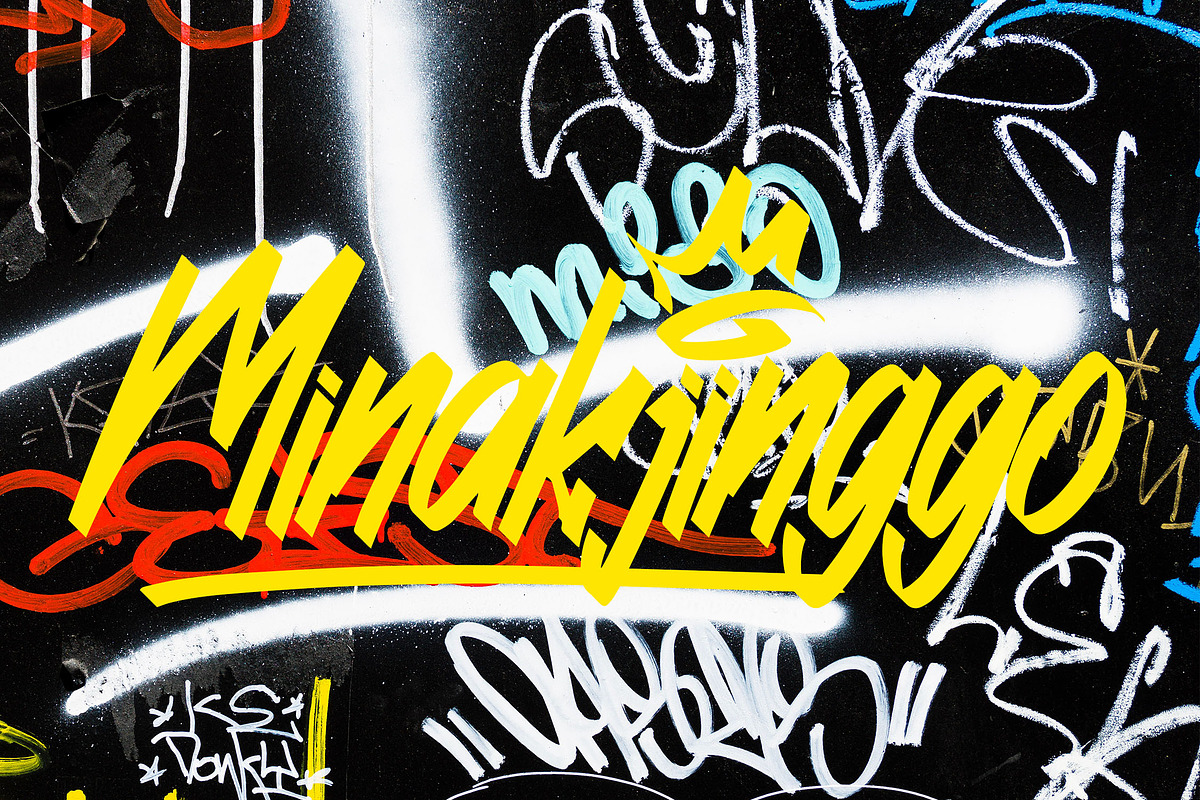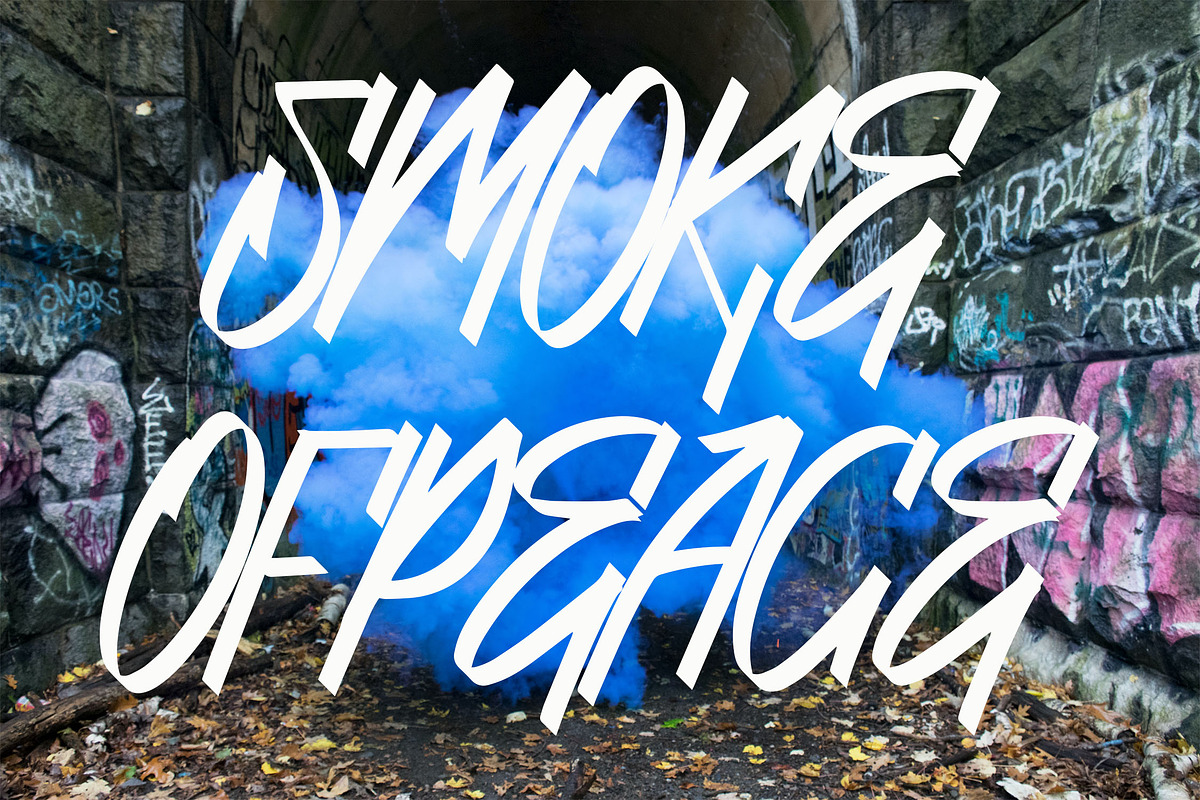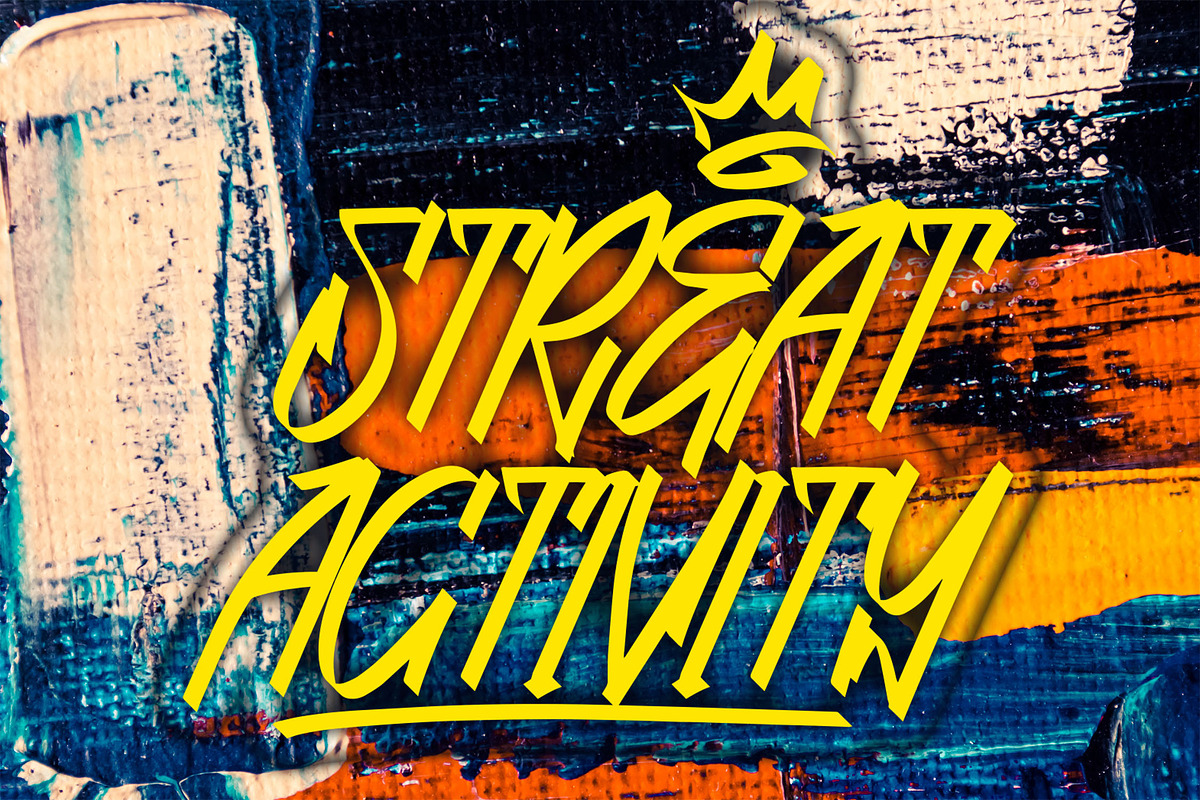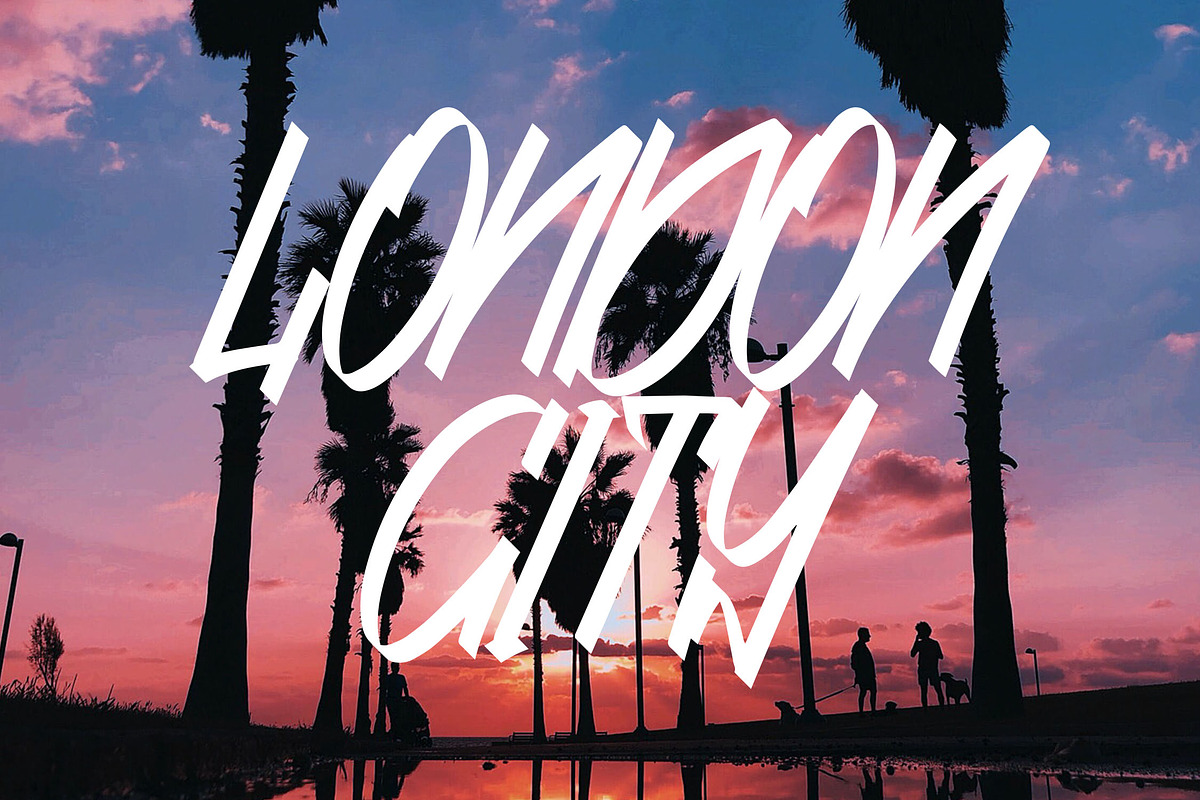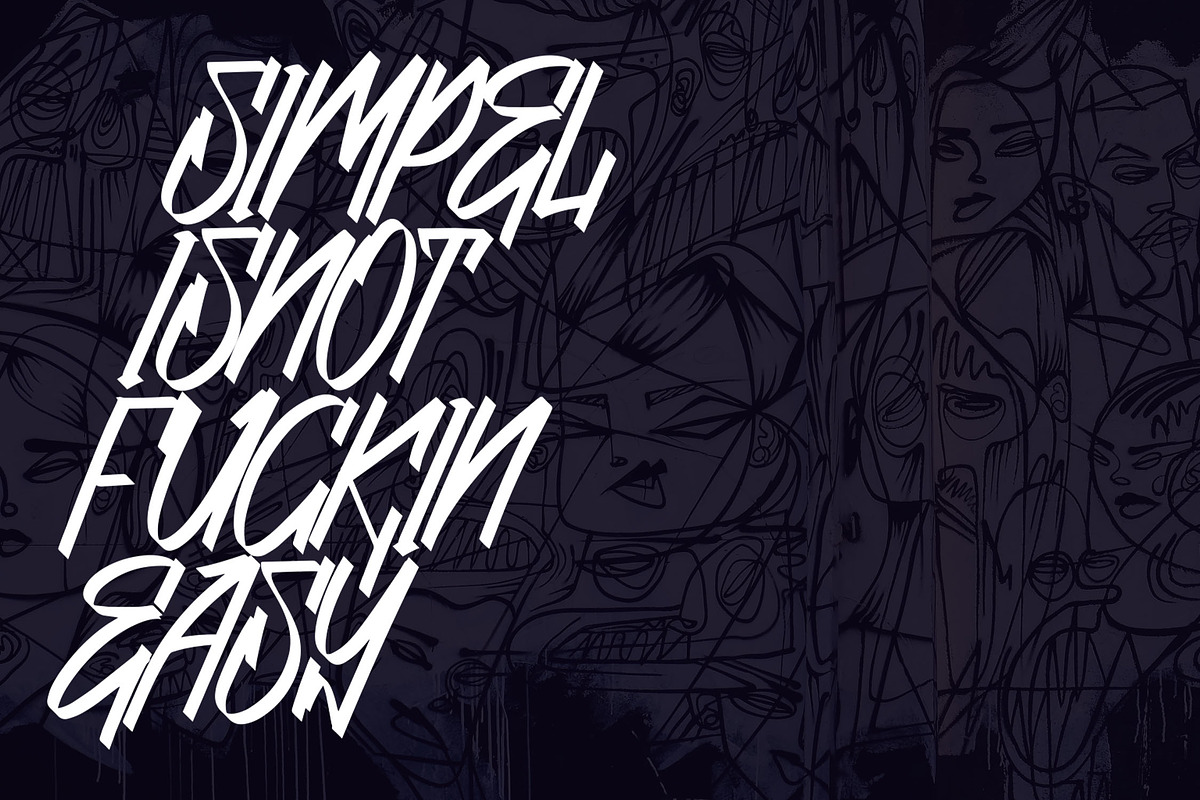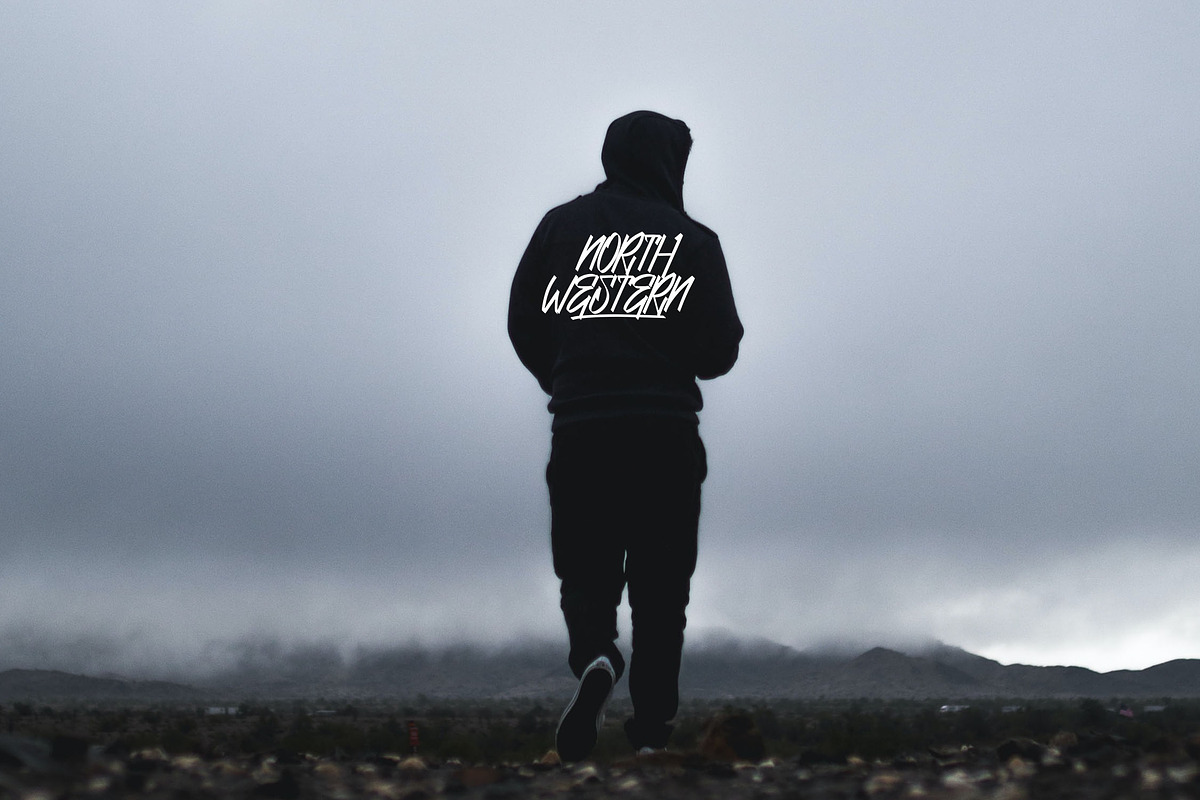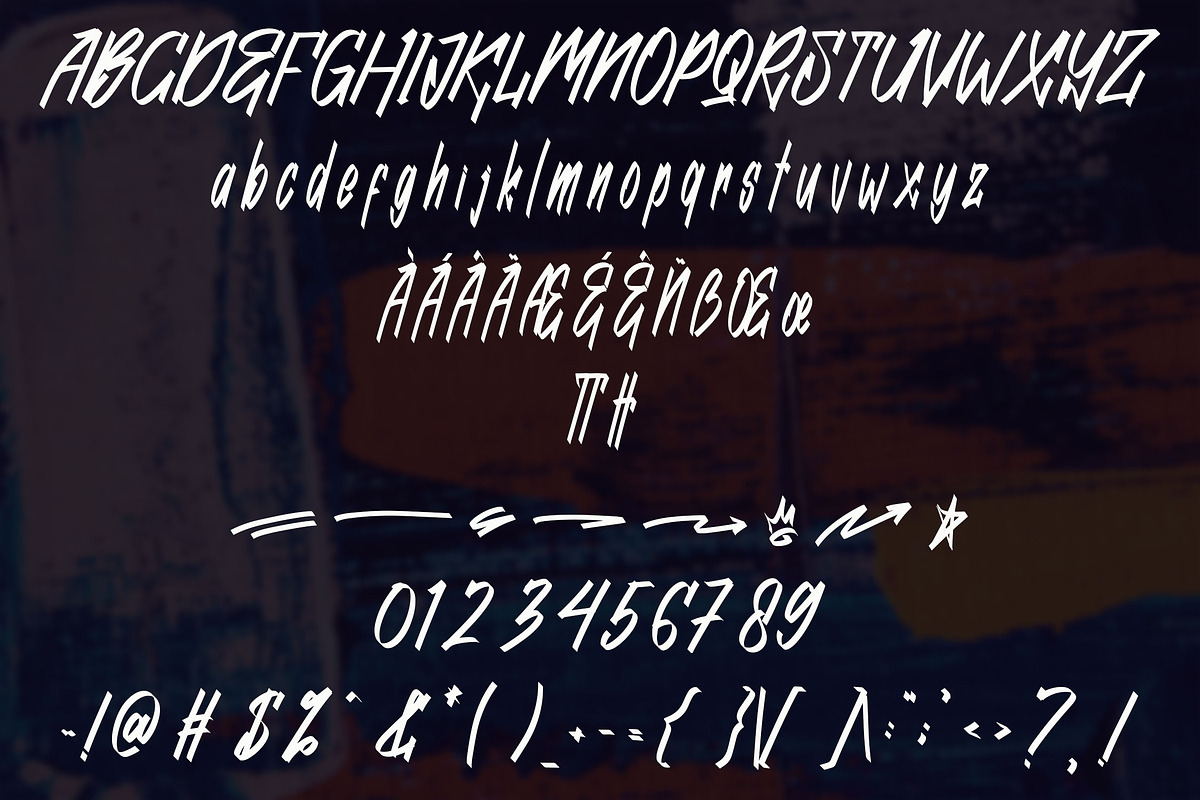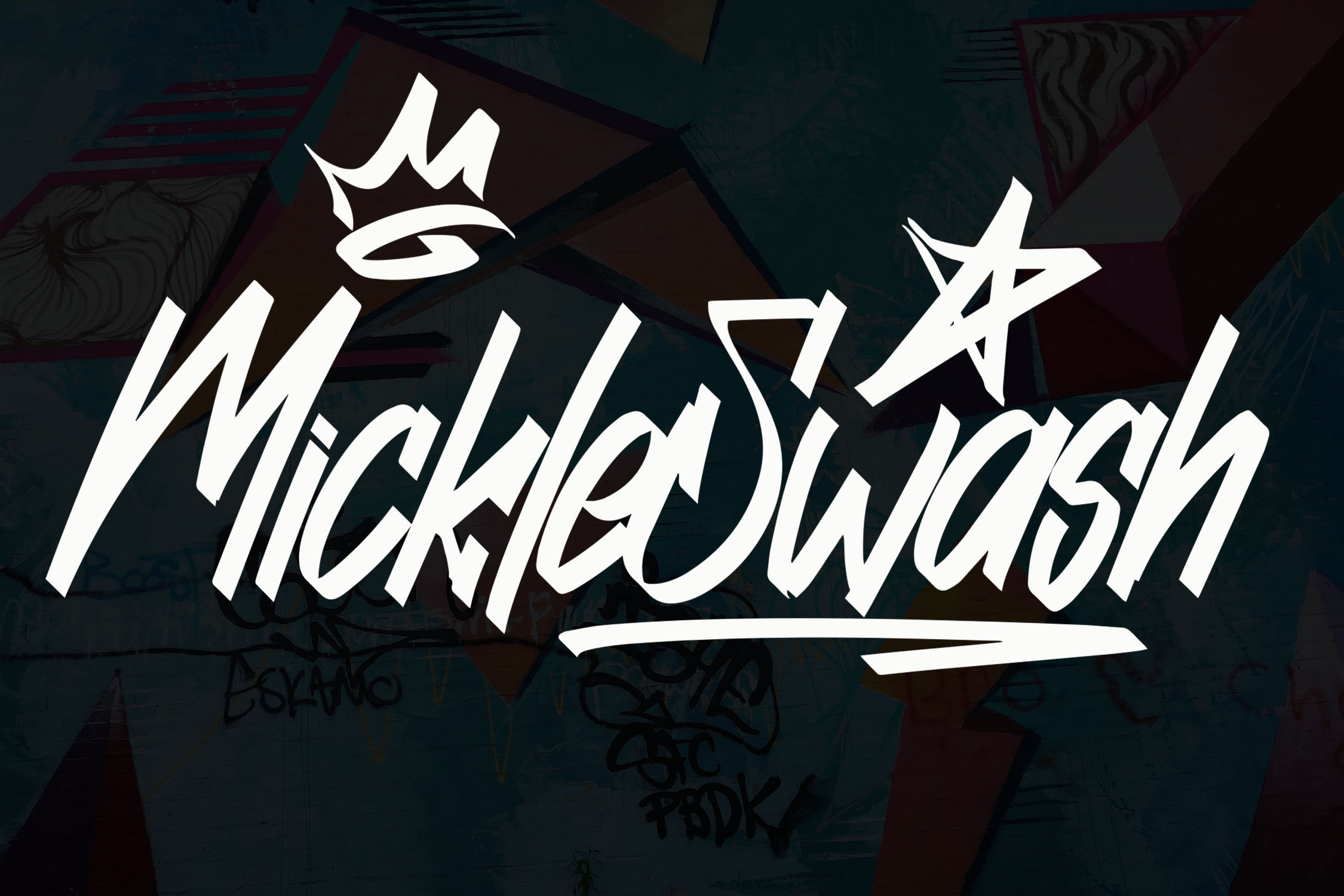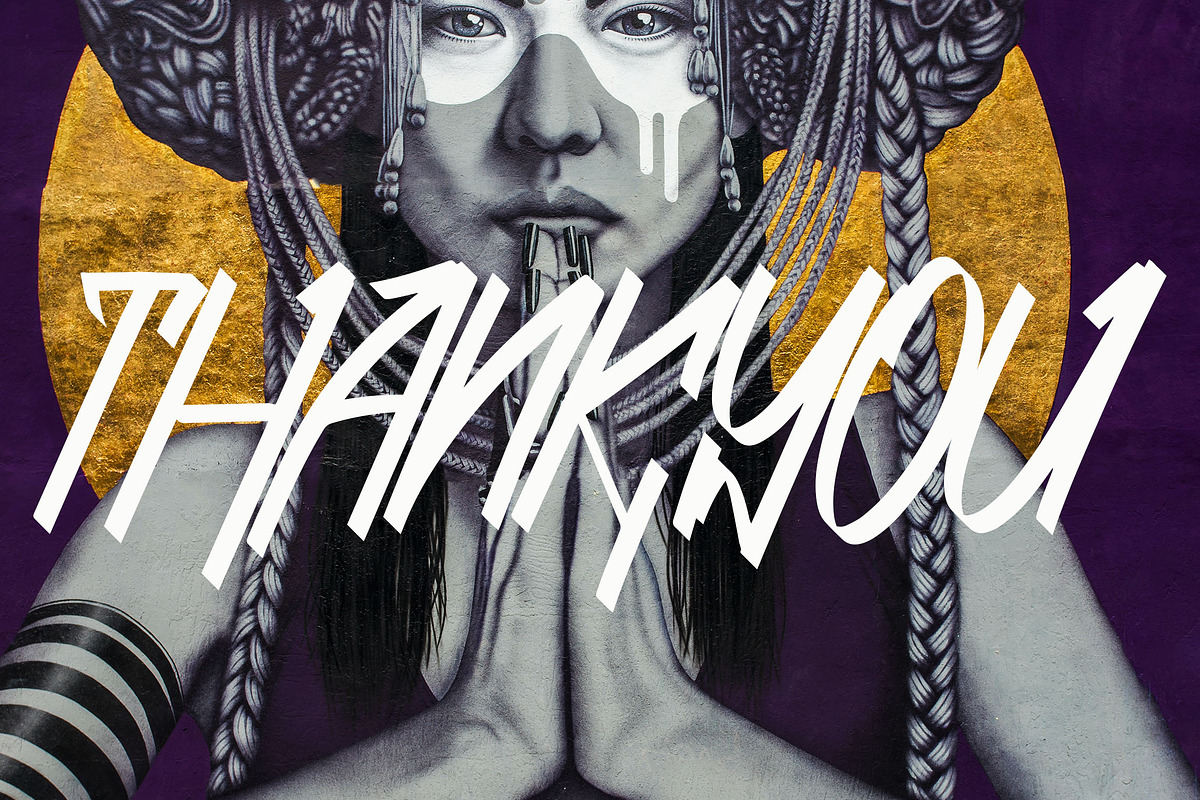
Mickle Swash Brush Font
Mickle Swash is a bold handbrush-style font designed with unique character shapes to enhance any product's visual appeal. Its dynamic and artistic strokes make it an excellent choice for logos, branding, posters, and creative projects.